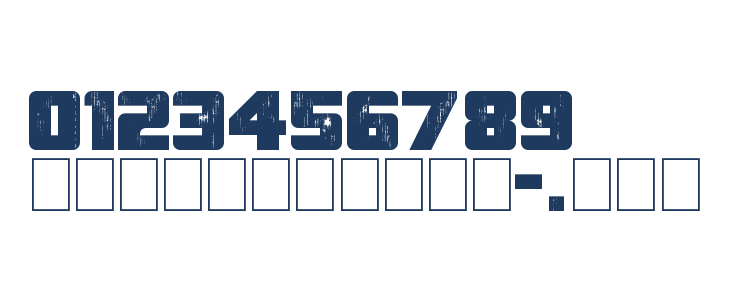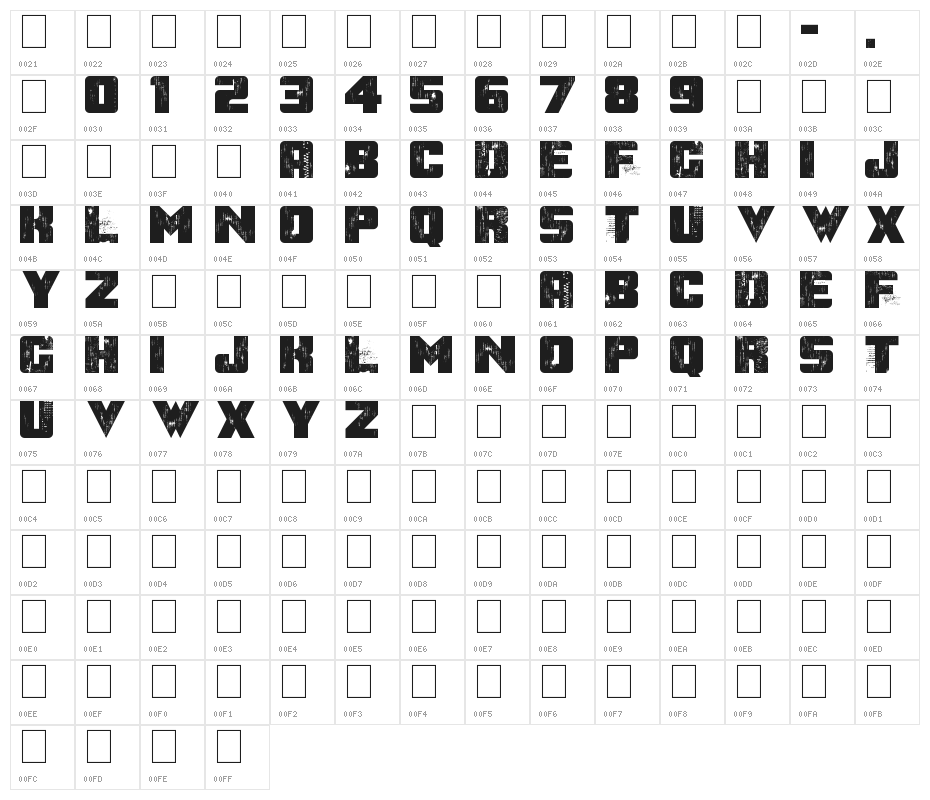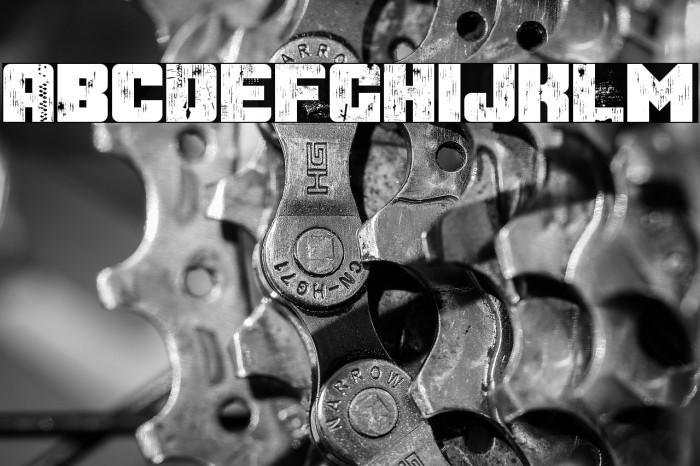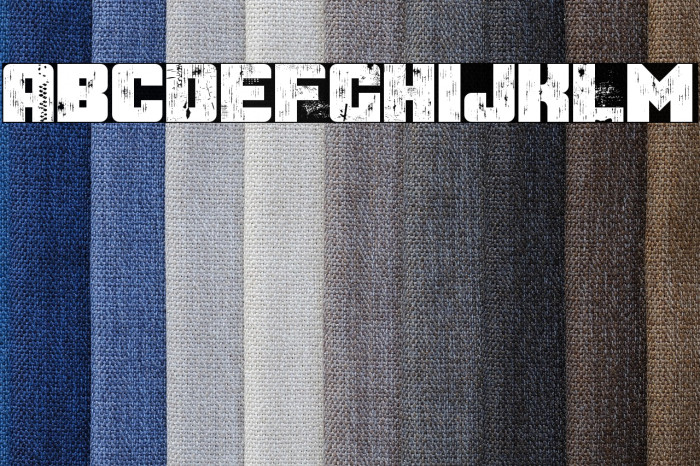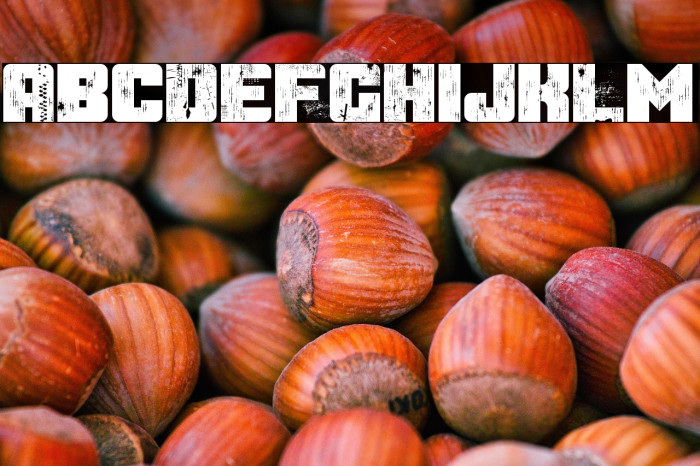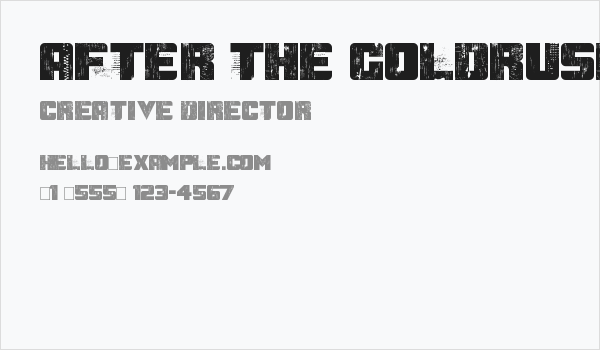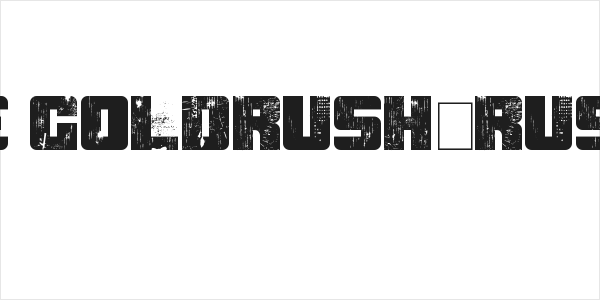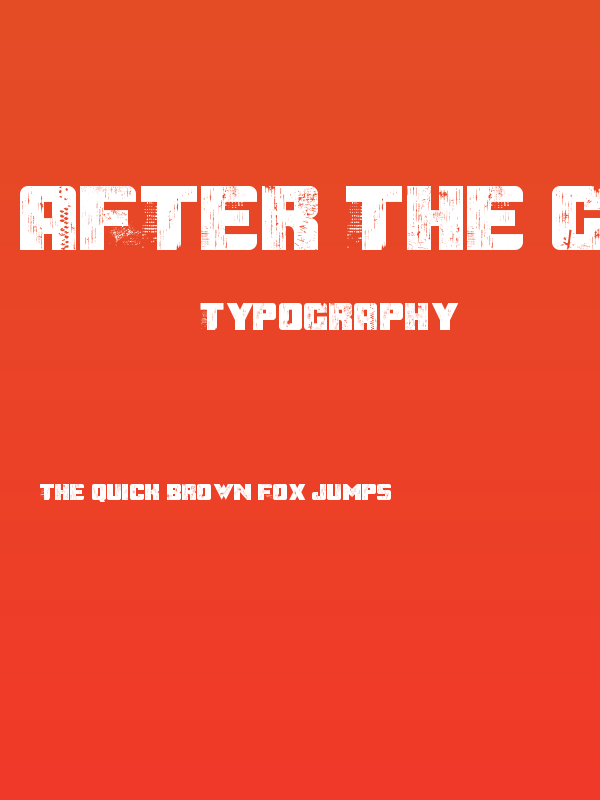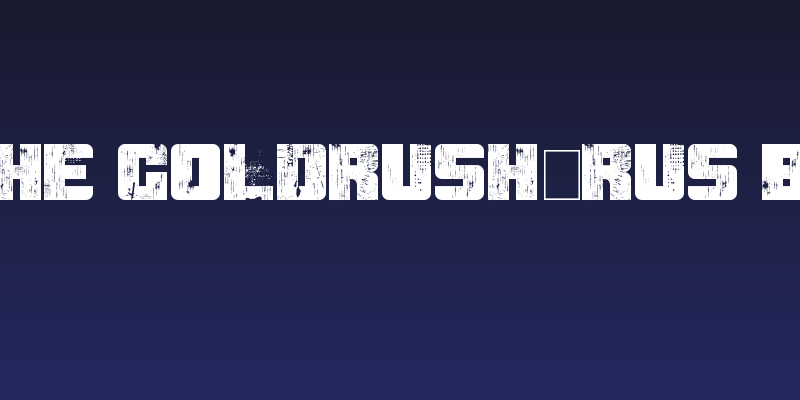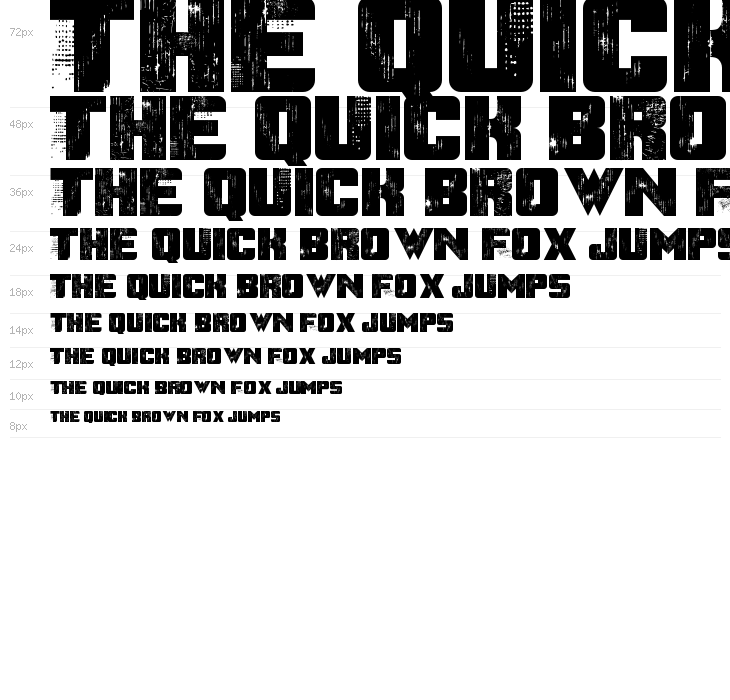
After the Goldrush(RUS BY LYAJK Font
After the Goldrush(RUS BY LYAJK Description
This font features a bold and distressed style, characterized by its rough, textured appearance that mimics a worn or aged effect. The uppercase letters are blocky and robust, with a consistent height and width that gives them a strong presence. The numbers follow the same bold and distressed design, ensuring uniformity across all characters. The font's unique texture adds a vintage or grunge aesthetic, making it ideal for projects that require a rugged or industrial feel. The special characters maintain the same distressed look, providing a cohesive appearance throughout the entire character set.
| Proposed Projects | Ideal for posters, album covers, branding for vintage or industrial-themed products, and any design requiring a rugged, worn look. |